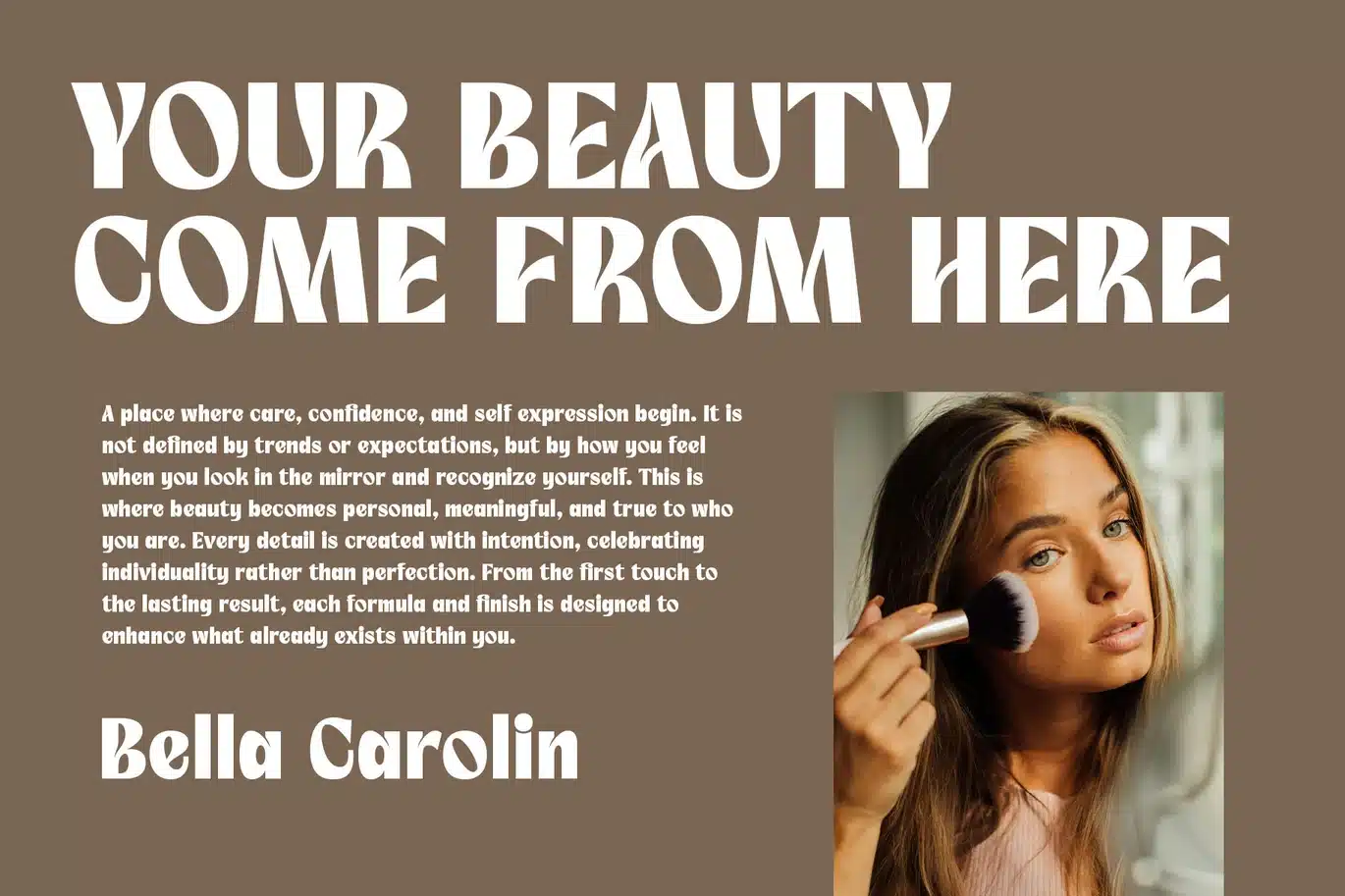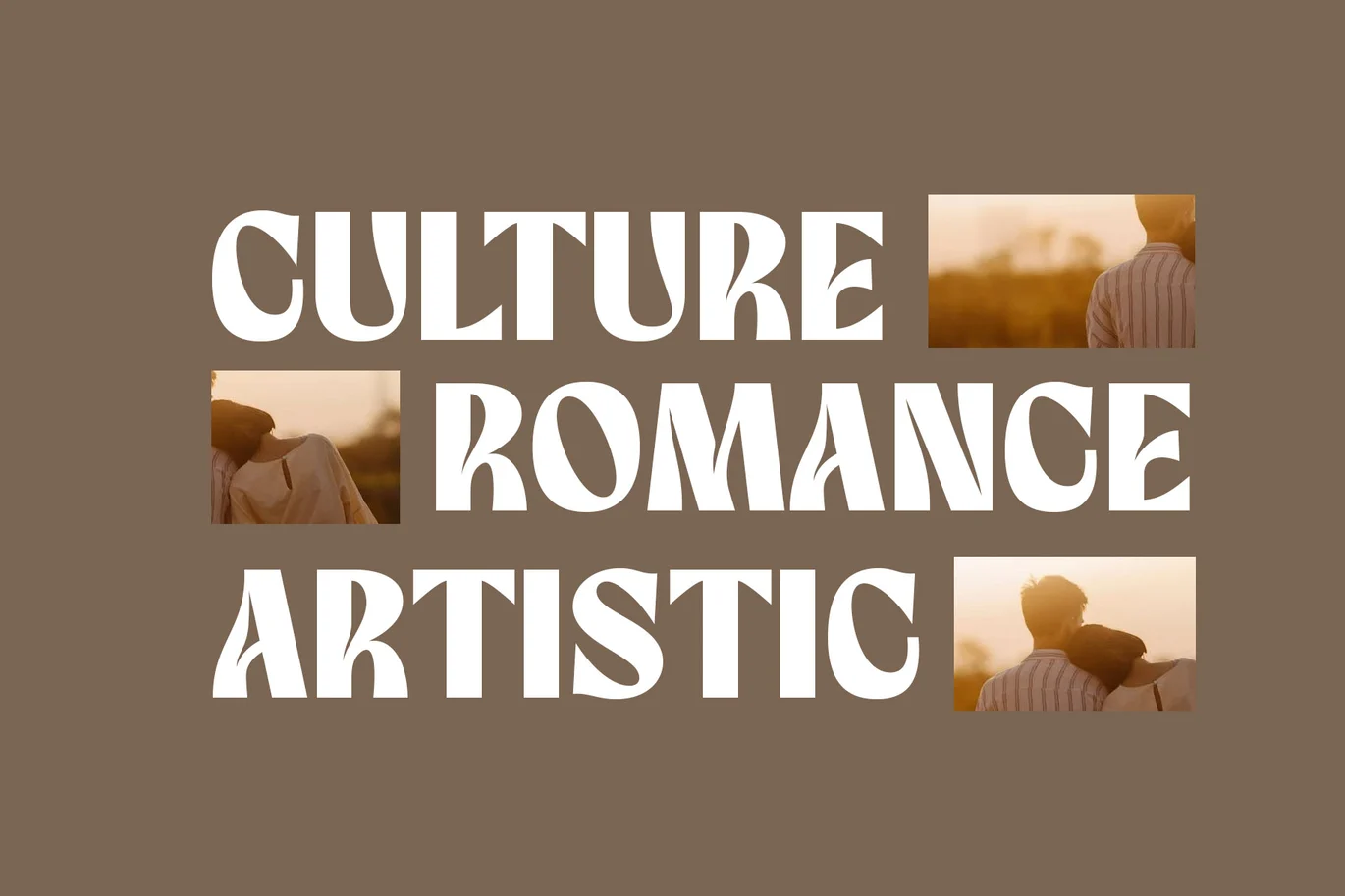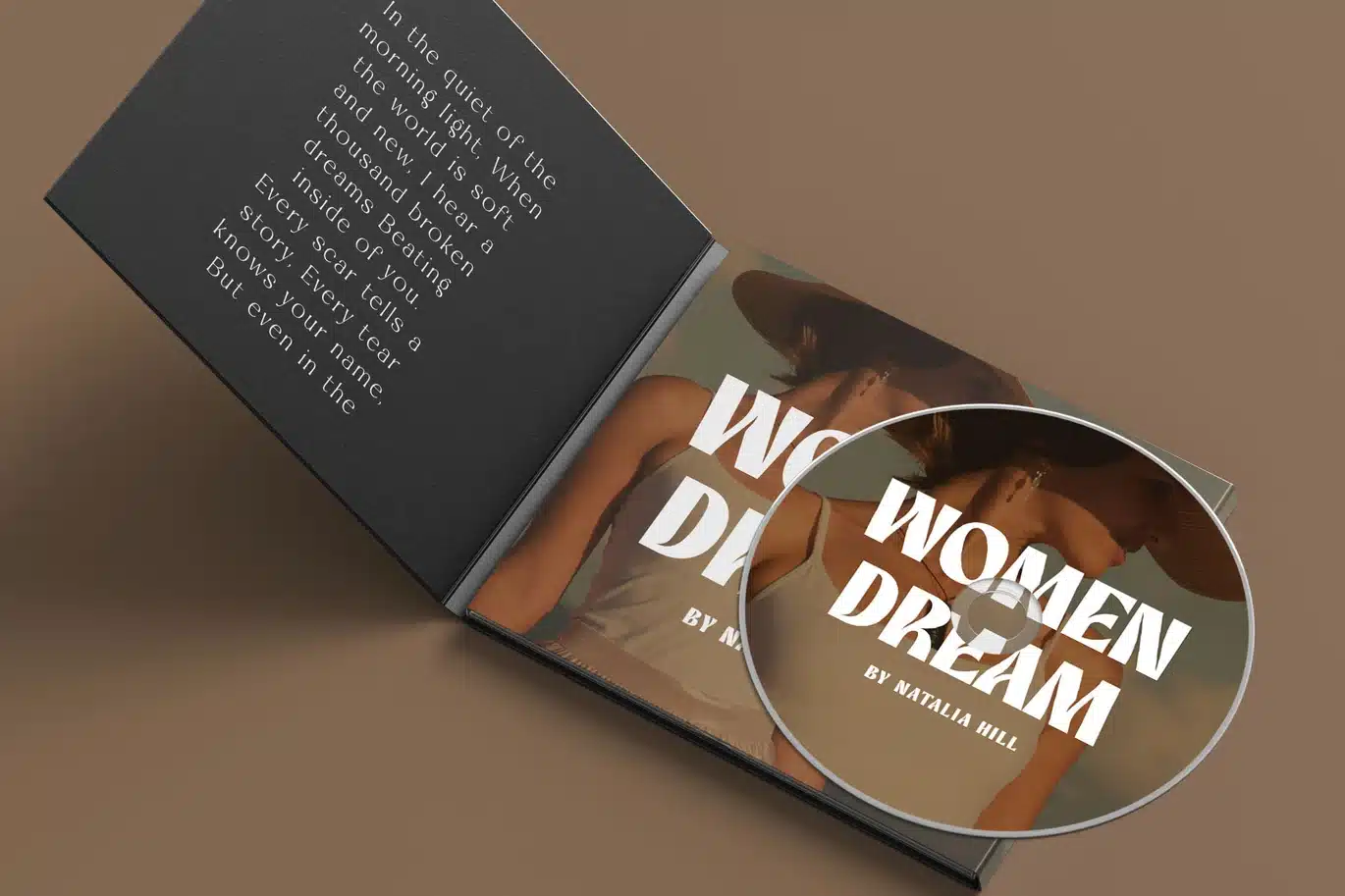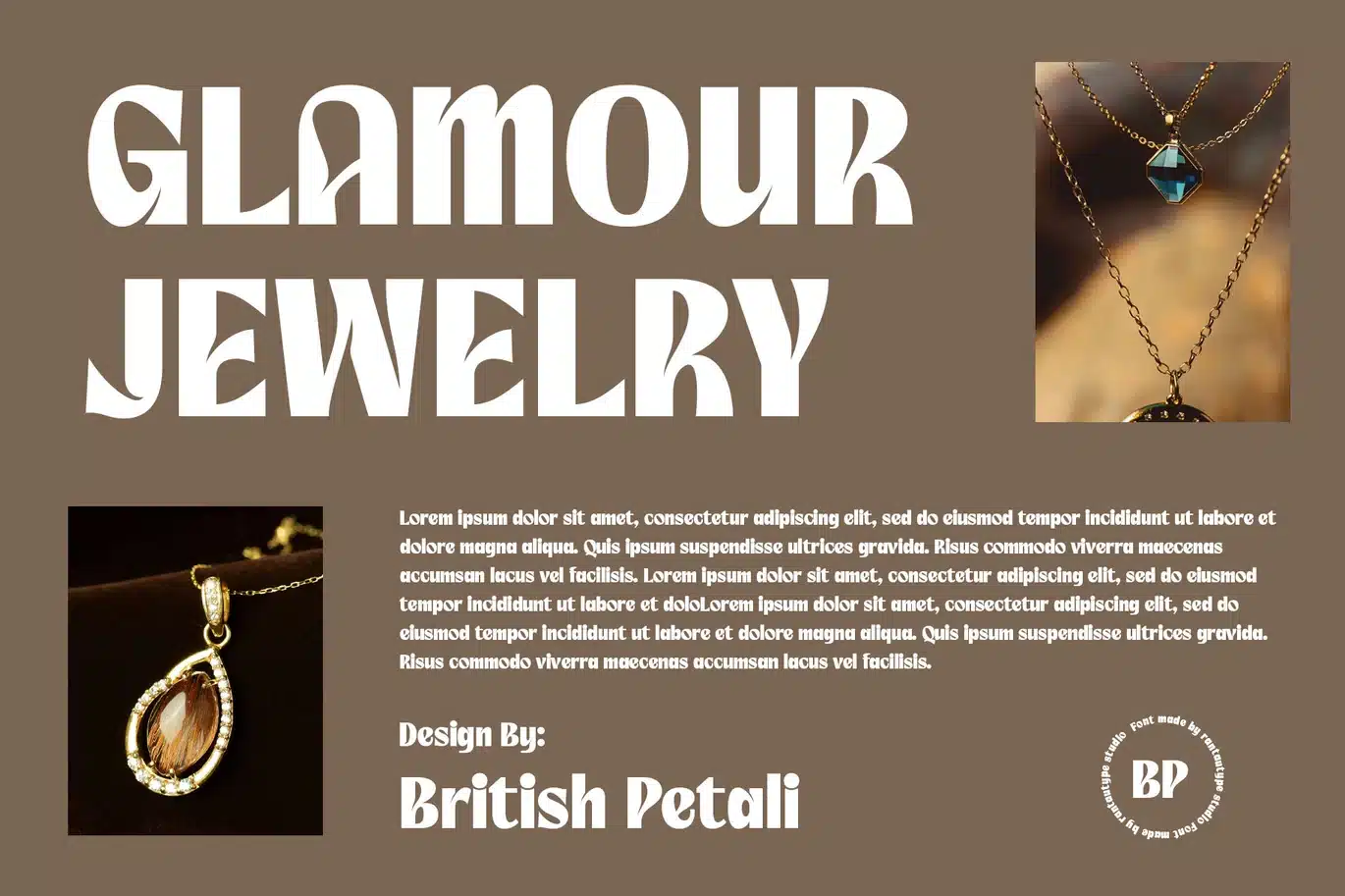
Monpista Modern Branding Font
Monpista is modern branding font with bold character. Monpista bring confidence, clarity, and contemporary vision. The bold strokes deliver impact, while the modern proportions ensure readability across digital and print platforms. Monpista bring professional character to make your design stand out!! Monpista is a perfectly choice for any creative endeavor, creating, modern, lifestyle design such as logotype, title, cover, branding, invitations, wedding designs, display and magazine, social media posts, advertisements, printed quotes, product packaging, corporate brand, product designs, labels, photography, watermarks, special events and any other project with modern touch.